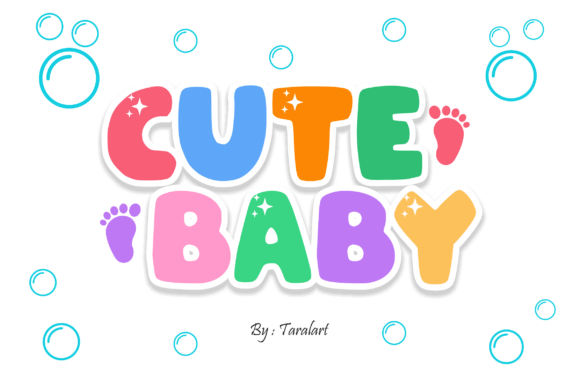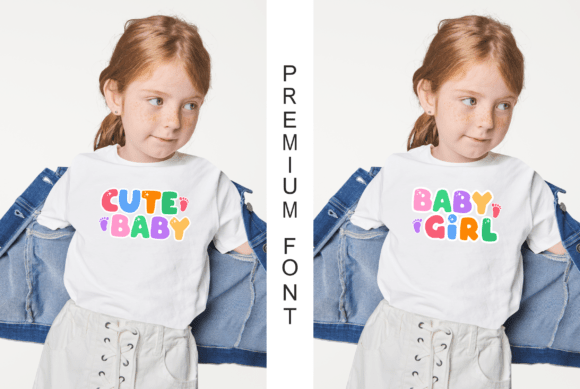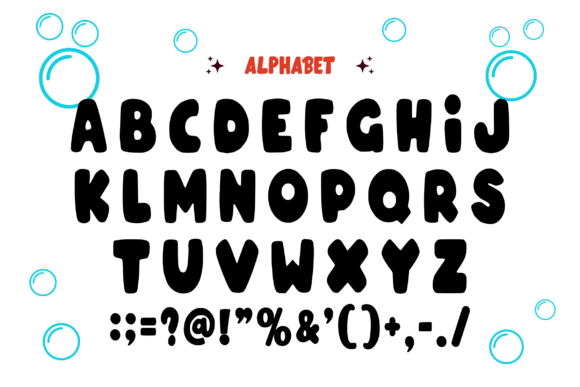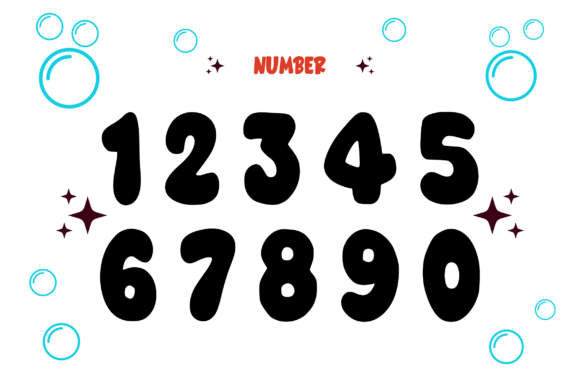
Introduction to Small Kids Font
Unveiling “Small Kids”, a bubbly, adorable kid-friendly font.
Each character is noticeably robust and playful, ensuring ease of recognition It’s an ideal choice for enhancing the charm of sublimation designs on t-shirts, mugs, and tote bags.
Key Features of Small Kids Font